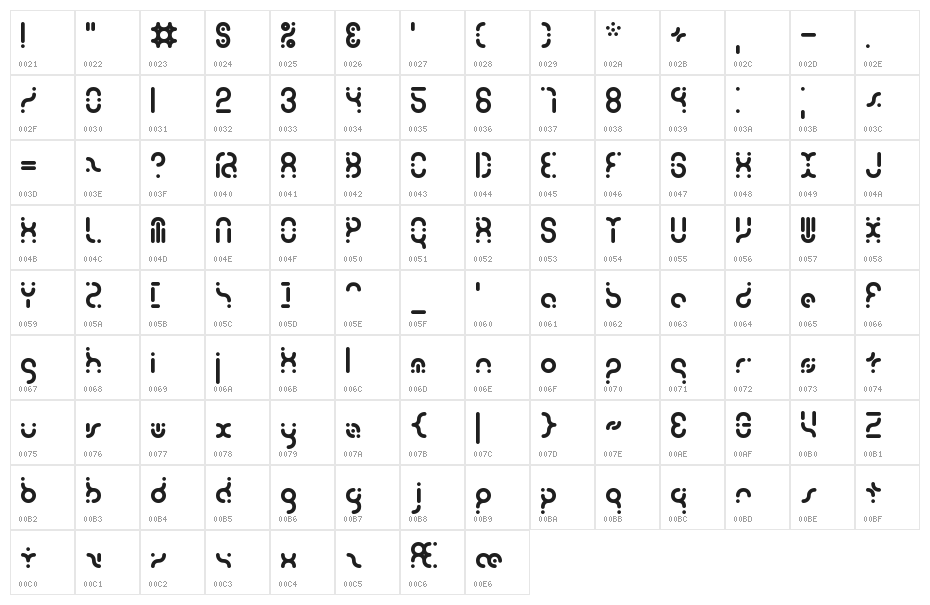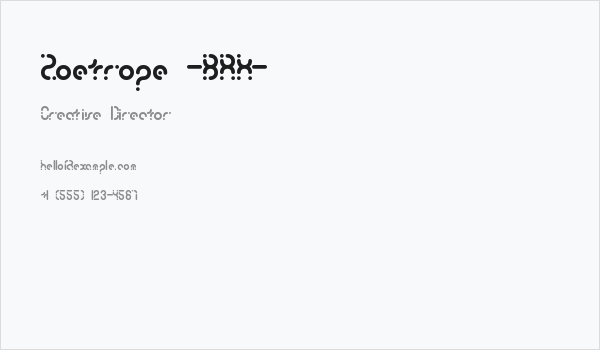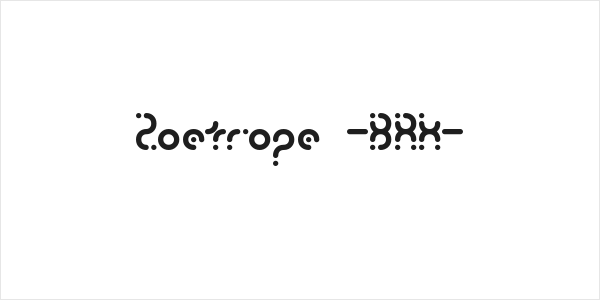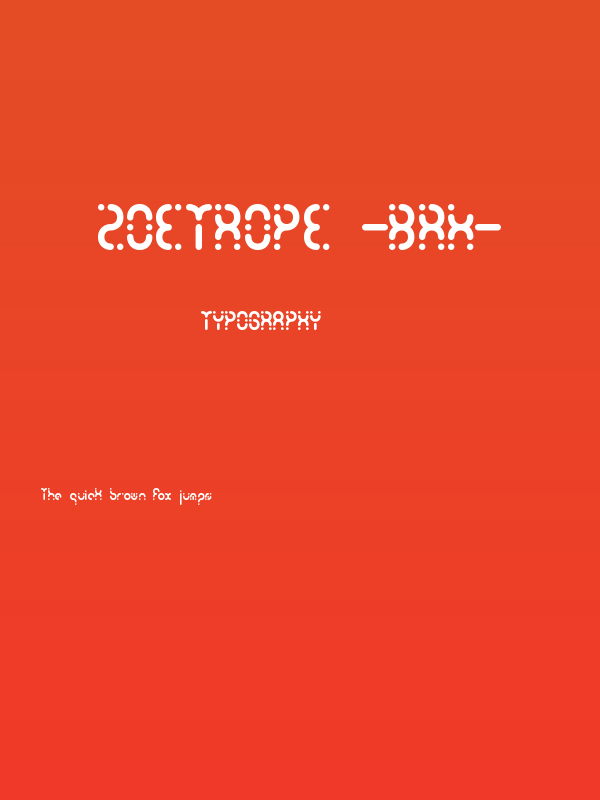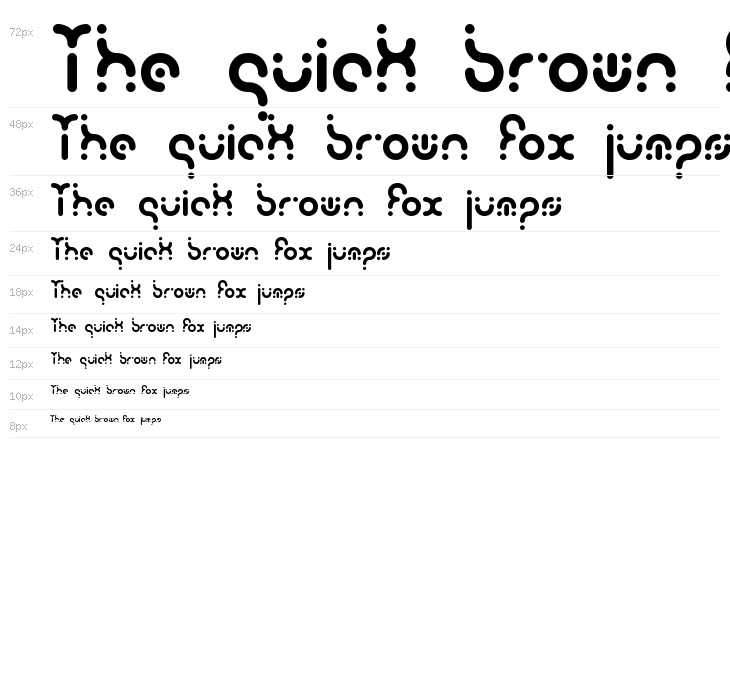
Zoetrope -BRK- Font
Zoetrope -BRK- Description
This font features a highly decorative and unique style, characterized by its bold, rounded shapes and the incorporation of circular dots within the letterforms. The design is playful and futuristic, with each character appearing as a combination of solid lines and dots, creating a sense of movement and rhythm. The uppercase and lowercase letters maintain a consistent style, with the numbers and special characters following the same design principles. This font's distinct appearance makes it stand out, offering a visually engaging experience.
| Overall Style | Futuristic, Playful |
| Proposed Projects | Ideal for creative projects such as posters, album covers, video game graphics, and branding for tech or entertainment industries. |